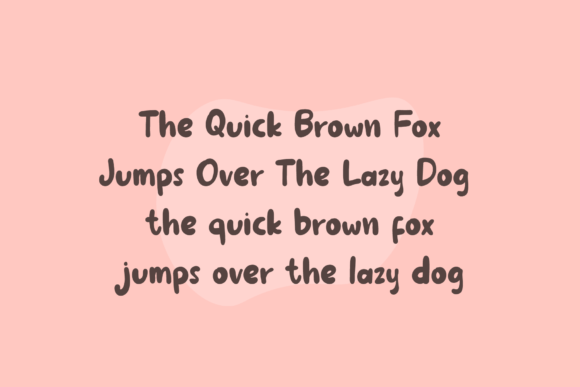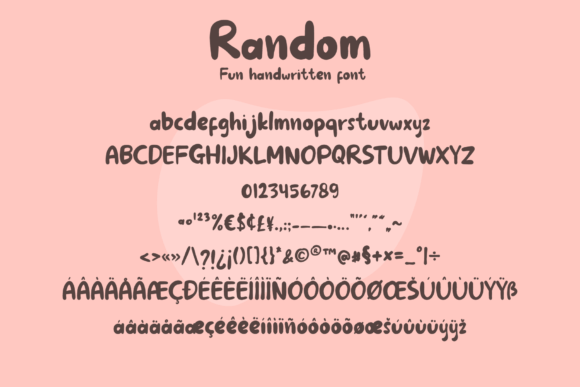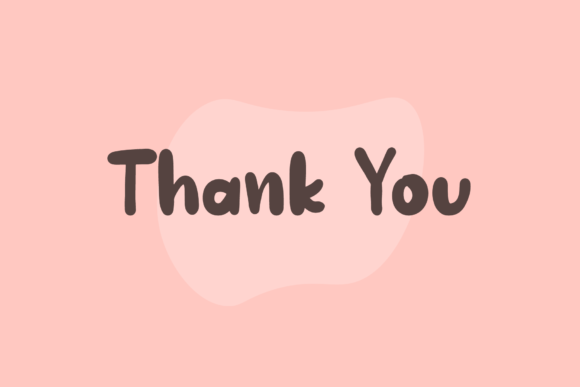
Random Font
Introducing Random Font
The Random Font is a whimsical and friendly handwritten typeface that exudes playfulness and charm. With its unique and playful characters, this font is the perfect choice for infusing a cute and casual vibe into your creative projects. Whether you’re working on designs for children’s books, posters, greeting cards, social media posts, or any project that requires a touch of lightheartedness, Random can add that fun and friendly element you’re looking for.
Why Choose This Typeface?
• Playful and Friendly: Random adds a touch of whimsy to your designs, making it ideal for projects that aim to engage with audiences in a light-hearted manner.
• Versatile Usage: This font provides a visually appealing choice for various creative endeavors, allowing you to infuse your designs with creativity and approachability.
Applications of Random
• Children’s Books: Use this font to create engaging content that captures attention.
• Greeting Cards: Enhance your cards with a playful style that conveys warmth.
• Social Media: Perfect for adding a casual script aesthetic to social media graphics and other creative projects.
The Impact of Using Random
This font elevates your designs by making them visually captivating and memorable. It becomes a reliable tool for designers seeking to create projects that stand out with playfulness. Its balanced form ensures your designs are both lively and captivating.
The Value It Brings
This typeface excels in combining contemporary design aesthetics with casual elegance. By choosing Random, you ensure your designs are not only visually appealing but also engaging and unique.
This font is also ideal for various creative projects beyond traditional uses. It can enhance digital designs with its cheerful flair, making it suitable for websites, brochures, or mobile interfaces. The Random Font adapts well to different screen sizes while maintaining its charm. As design trends evolve, this font remains relevant due to its timeless appeal, balancing style with functionality effectively.